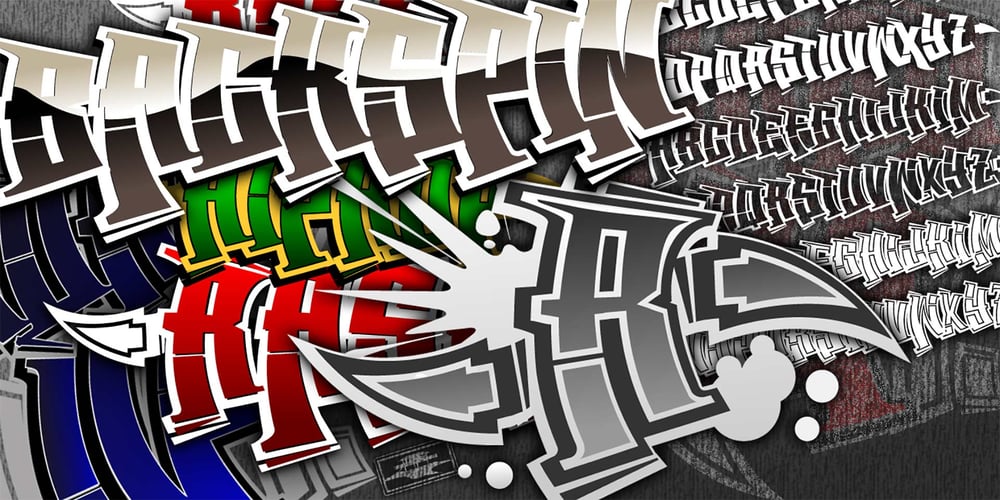
Back Spin Font Family was designed by Matthew Napolitano and published by Graffiti Fonts. Back Spin contains 3 styles and family package options. BackSpin is a mechanical graffiti block letter style font in the realm of throwies, stamps. This block letter style was created with a custom algorithm with just enough graffiti funk added while still remaining even and legible. BackSpin includes both outline & fill styles with embellishments like arrows & splatters in a layered type system allowing fill, outline & detail styles to be easily combined.